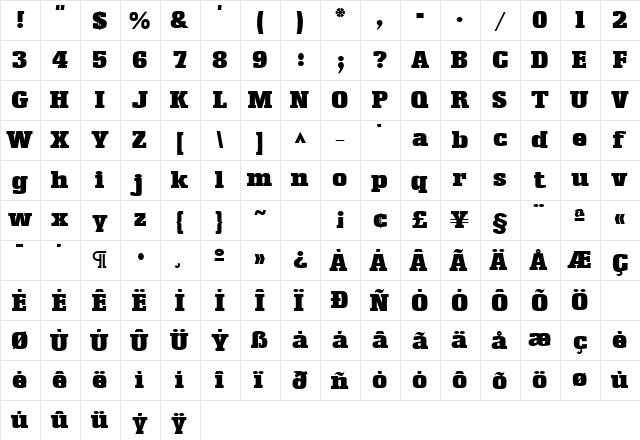
Entrez Regular
Design Context for Entrez Typeface
Entrez is a composed and adaptable typeface that performs quietly and consistently across a wide range of design contexts.